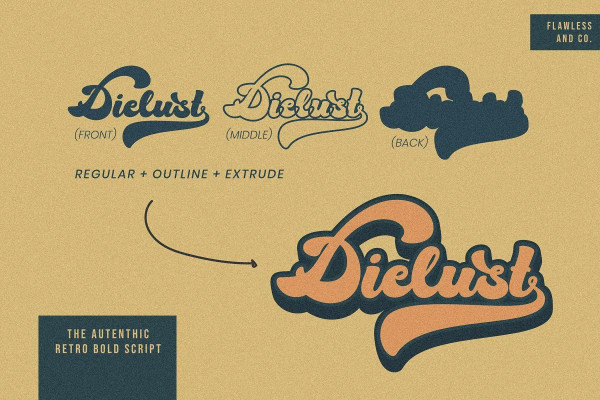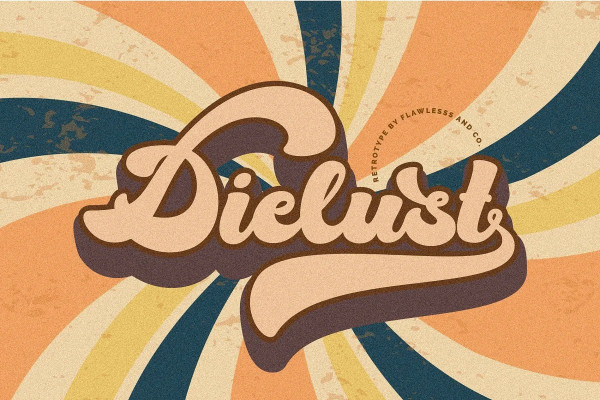
Dielust Font
Dielust Font – Script – Retro Font, our latest creation, modern serif with various alternates and ligatures, multilingual support, an updated blend of bohemian style, suitable for branding, business, logos, magazines, and others